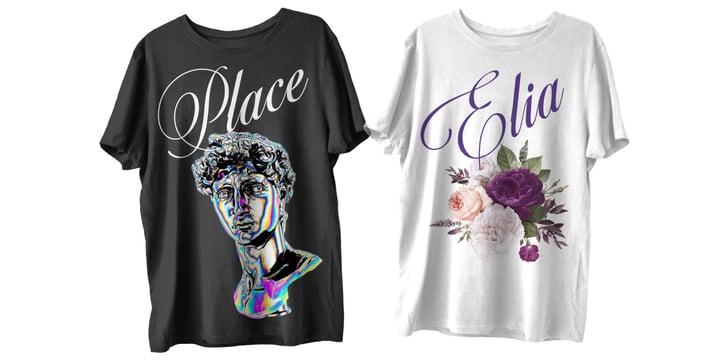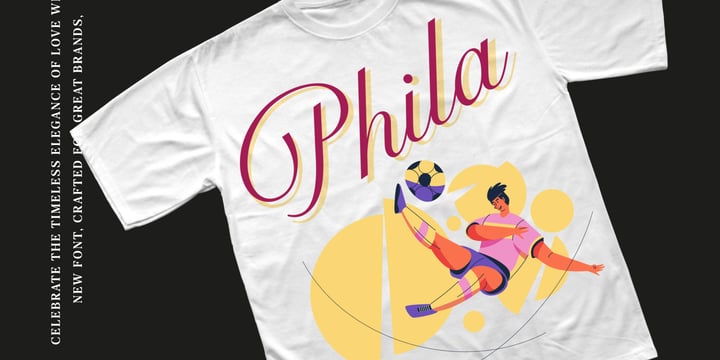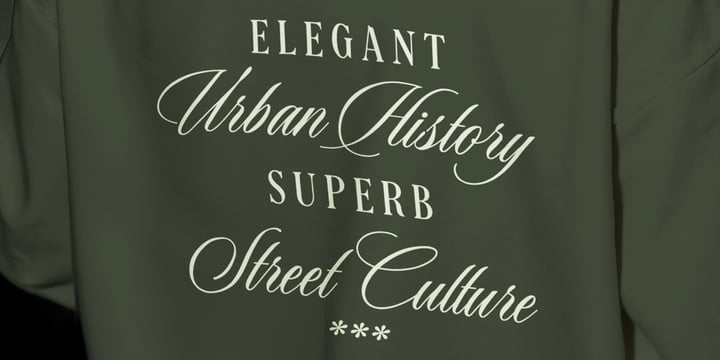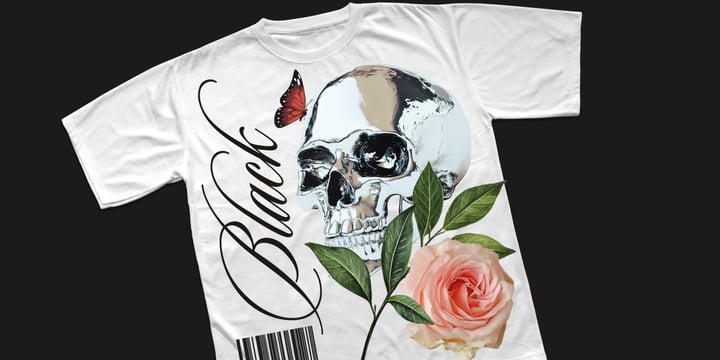
T Shirt Script Bundle
The T Shirt Script Bundle is a chic collection of handcrafted script fonts specifically designed for T-shirt designs, streetwear, branding, logos, quotes, merchandise, and contemporary typography projects. Each font showcases a bold handwritten style that infuses personality and a premium aesthetic into your designs. This bundle is perfect for Cricut users, print-on-demand services, apparel brands, social media graphics, posters, packaging, and innovative fashion projects. The fonts are user-friendly, making them ideal for crafting eye-catching and professional-looking typography that stands out in any creative endeavor.